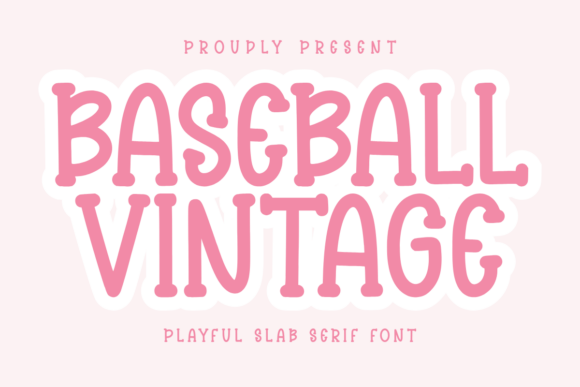
Discover the Charm of Baseball Vintage Font: Elevate Your Designs with a Cute and Minimalist Slab Serif Font
The world of typography is vast and diverse, offering a multitude of font styles to suit various design needs. Among these, the Baseball Vintage font stands out for its unique blend of nostalgia and simplicity. This article delves into the characteristics, uses, and benefits of the Baseball Vintage font, a cute and minimalist slab serif font that has captured the hearts of designers and crafters alike.
What is Baseball Vintage Font?
Baseball Vintage is a charming slab serif font designed to evoke a sense of nostalgia reminiscent of classic baseball typography. Its clean lines, simple shapes, and minimalist approach make it an incredibly versatile font suitable for a wide range of design projects. Whether you’re creating greeting cards, wedding invitations, gift labels, or merchandise like mugs and t-shirts, Baseball Vintage offers a unique aesthetic that can elevate your designs.
Key Features of Baseball Vintage Font
- Cute and Minimalist Design: The font’s simplicity and charm make it appealing for projects that require a touch of nostalgia or a vintage look.
- Slab Serif Style: Slab serif fonts are known for their robust and dependable appearance, making Baseball Vintage perfect for both digital and print designs.
- Versatility: From formal invitations to casual merchandise, this font adapts seamlessly to various design needs.
- Ease of Readability: Despite its vintage appeal, Baseball Vintage maintains high readability, ensuring your messages are conveyed clearly.
Uses of Baseball Vintage Font
The versatility of Baseball Vintage font makes it an excellent choice for numerous applications. Here are some popular uses:
Popular Design Projects Featuring Baseball Vintage
- Greeting Cards: Add a vintage touch to your greeting cards for birthdays, holidays, or thank you notes.
- Wedding Invitations: The font’s elegant yet simple design makes it perfect for wedding invitations, save-the-date cards, and other wedding-related stationery.
- Gift Labels: Personalize gifts with custom labels that feature the charming Baseball Vintage font.
- Mugs and T-Shirts: Create unique merchandise with quotes, names, or messages that stand out with this distinctive font.
- Quotes and Posters: Use Baseball Vintage to highlight inspirational quotes, event posters, or any design that requires a touch of vintage charm.
- Labels and Packaging: Enhance your product labels or packaging with a font that offers both nostalgia and modern simplicity.
Benefits of Using Baseball Vintage Font
Choosing Baseball Vintage font for your design projects comes with several advantages:
Why Choose Baseball Vintage?
- Unique Aesthetic: Stand out from generic fonts with a unique vintage aesthetic that captures attention.
- High Versatility: Suitable for both digital platforms and print materials, ensuring consistency across different mediums.
- Easy to Pair: The font’s simplicity makes it easy to pair with other fonts, offering flexibility in design.
- Emotional Connection: The vintage feel can evoke nostalgia and warmth, creating an emotional connection with your audience.
Tips for Using Baseball Vintage Font Effectively
To maximize the impact of Baseball Vintage font in your designs, consider the following tips:
Design Tips for Baseball Vintage Font
- Combine with Images: Pair the font with relevant images or illustrations to enhance the visual appeal.
- Play with Colors: Experiment with different colors to match the mood of your design, from soft pastels to bold hues.
- Adjust Size and Weight: Don’t hesitate to adjust the font size and weight to create visual hierarchy and emphasis.
- Maintain Readability: Ensure that your text remains readable, especially when using the font for longer texts or quotes.
Baseball Vintage font is a delightful addition to any designer’s toolkit, offering a unique blend of vintage charm and modern simplicity. Its versatility, readability, and aesthetic appeal make it suitable for a wide range of projects, from greeting cards and wedding invitations to merchandise and quotes. By incorporating Baseball Vintage into your designs, you can create visually appealing and memorable content that resonates with your audience. Explore the possibilities of this cute and minimalist slab serif font and elevate your designs to a new level of creativity and charm.